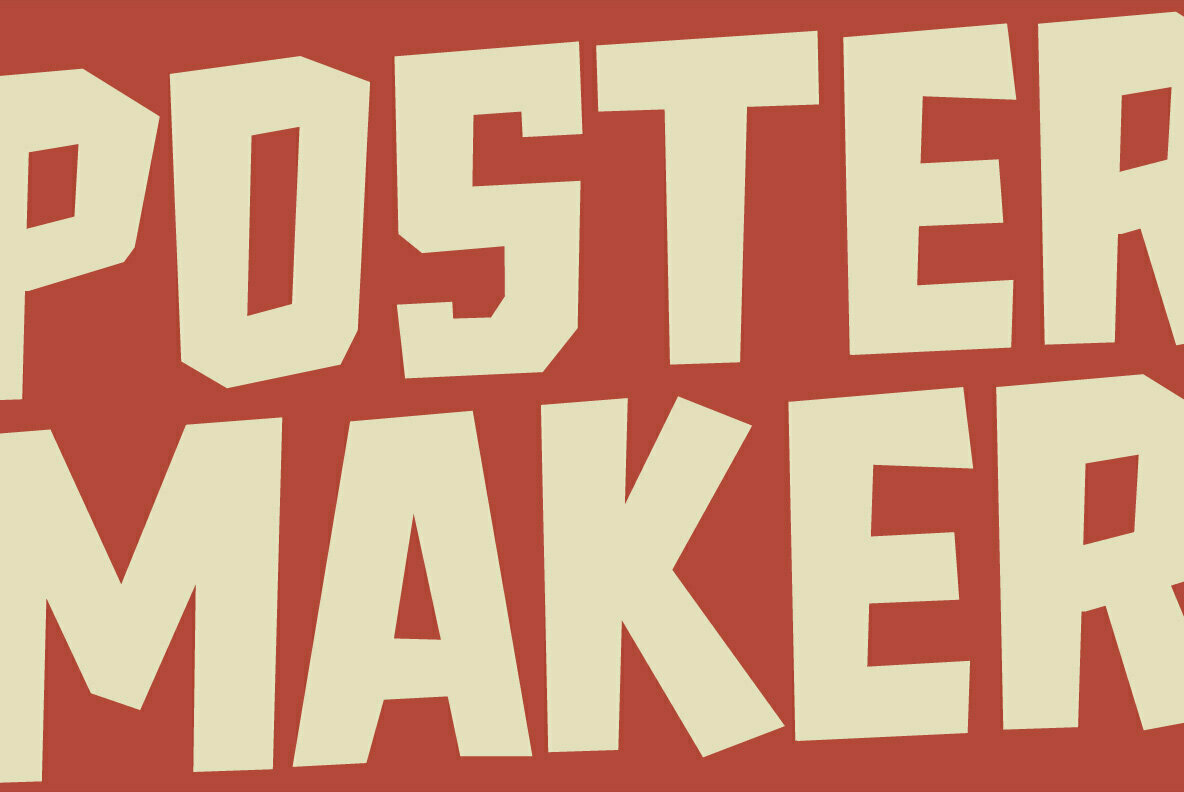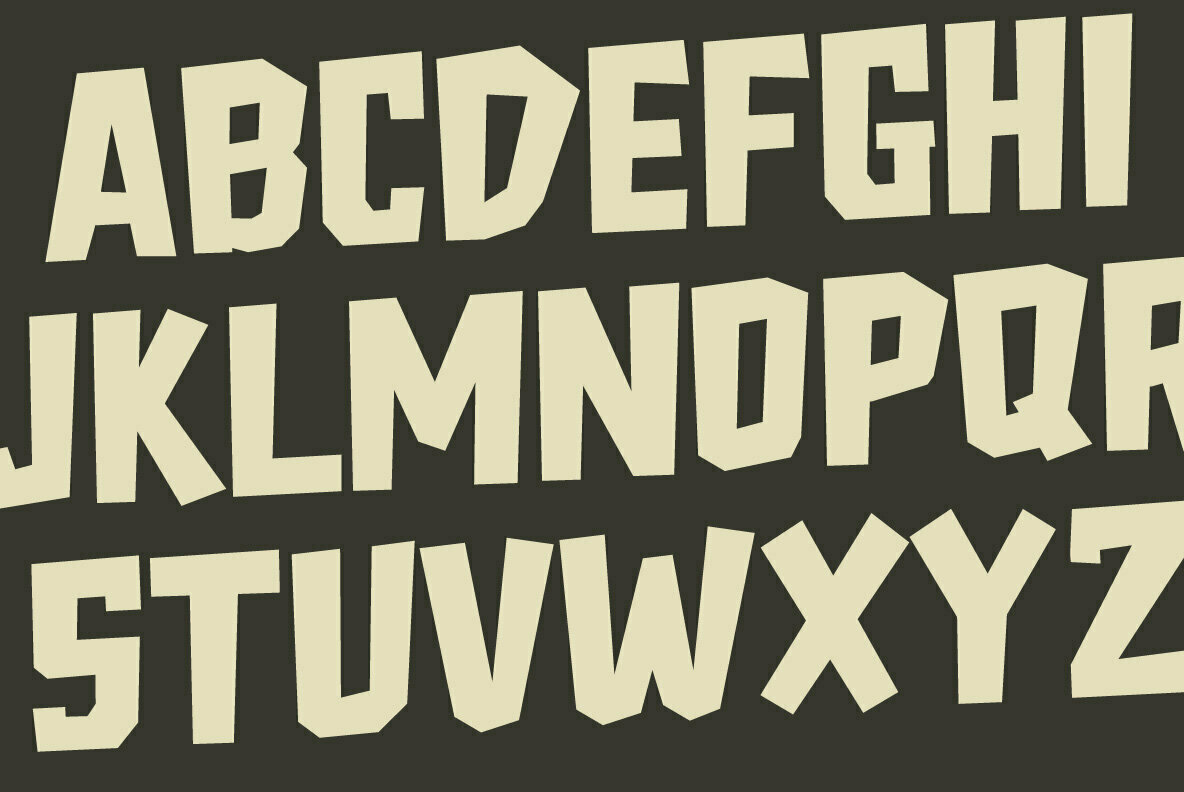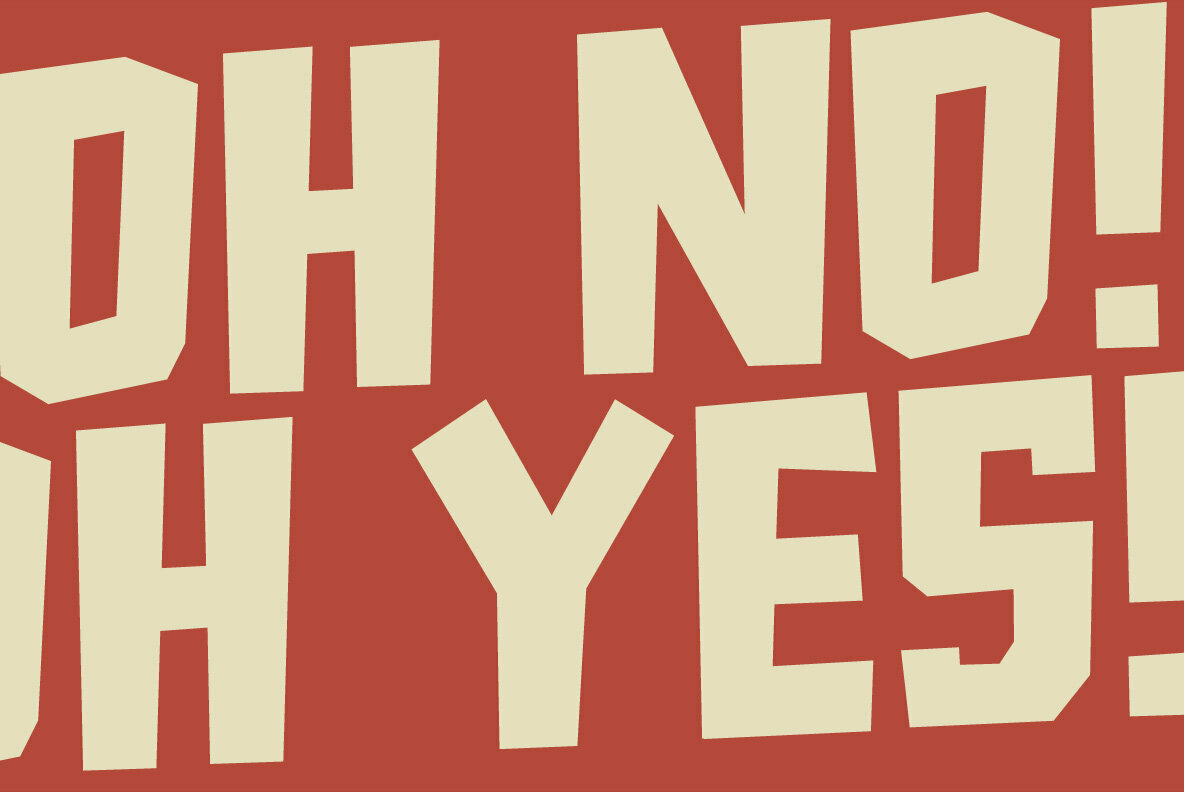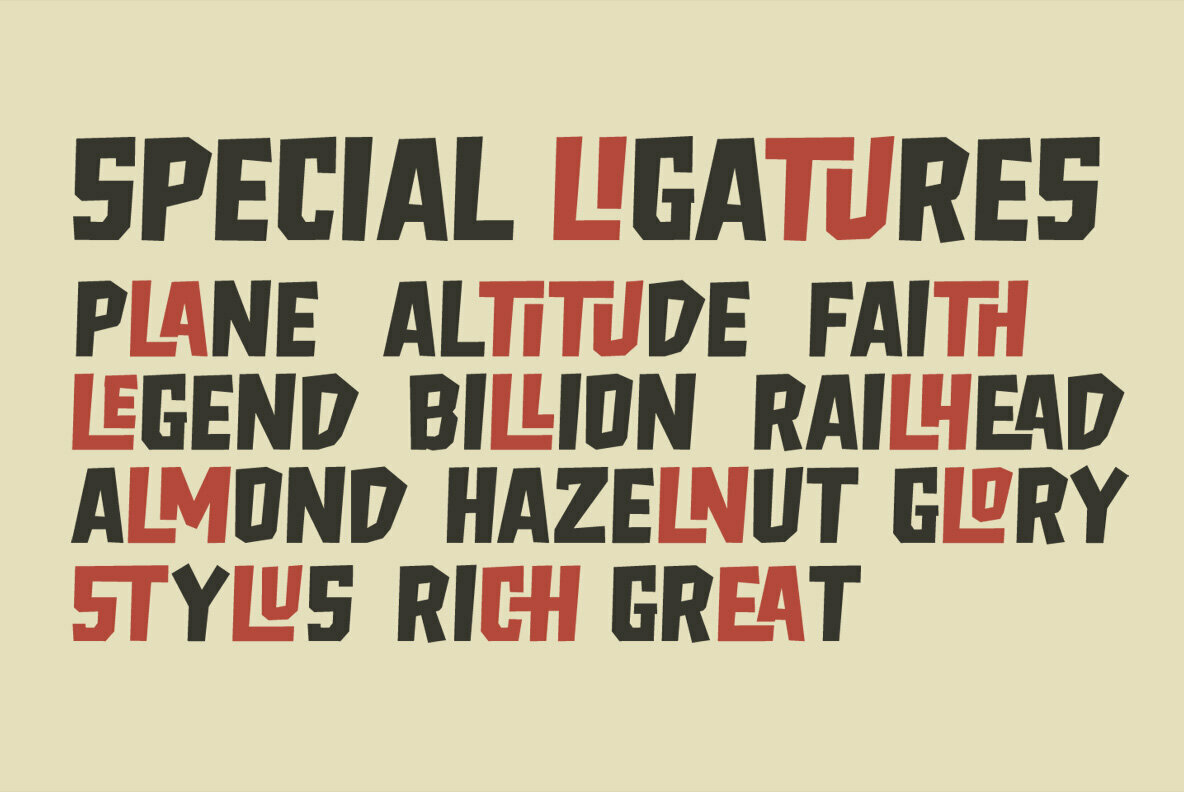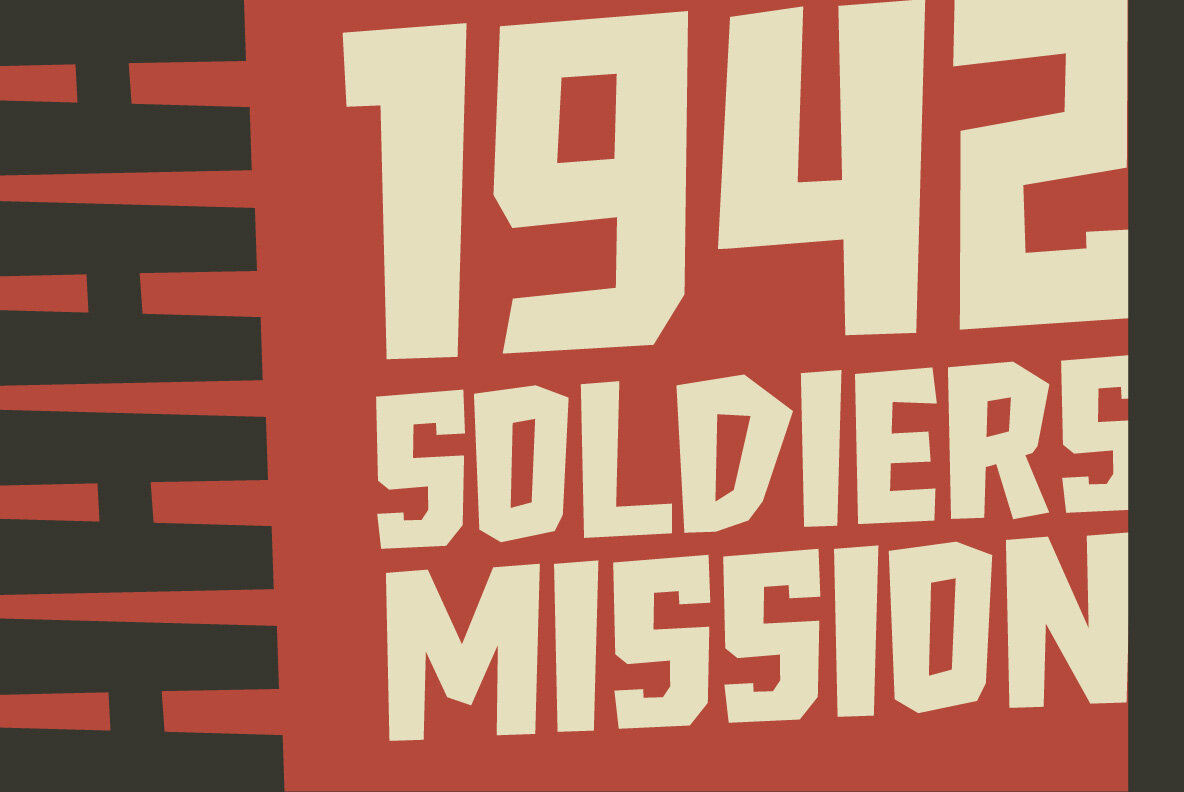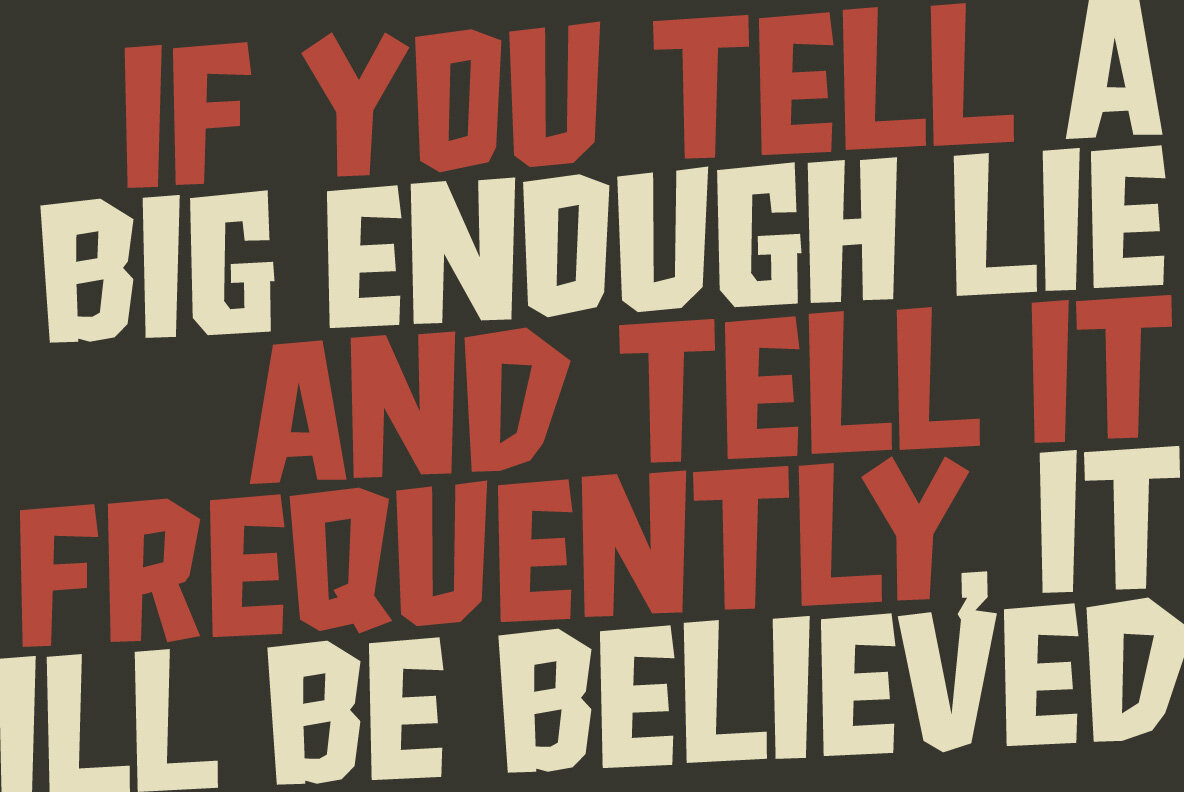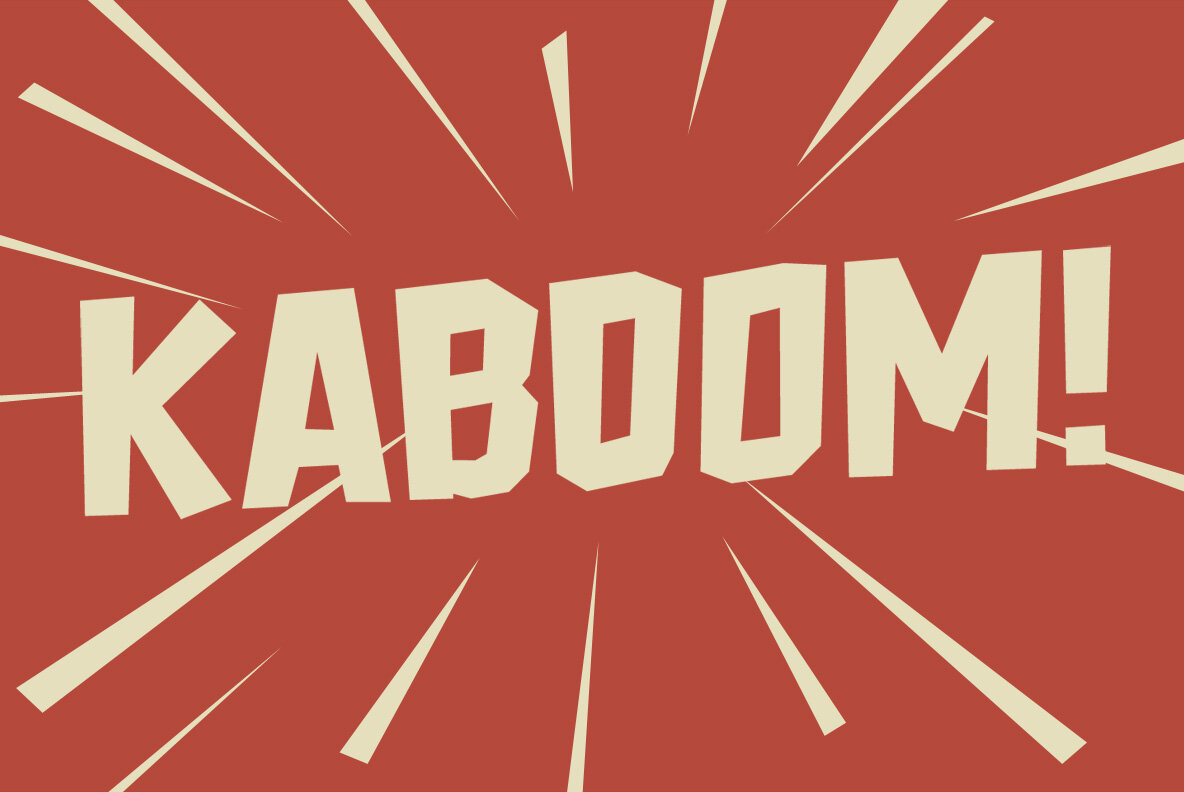
Freich Font
Freich
Freich is a mighty bold font with vintage vibes. Perfect for posters with super hero, rebellious, or propaganda themes. Its sharp and strong letter forms will make any statements more powerful.
Freich has several Special Ligatures: CH EA LA LE LH LI LL LM LN LO LU ST TH TI TU